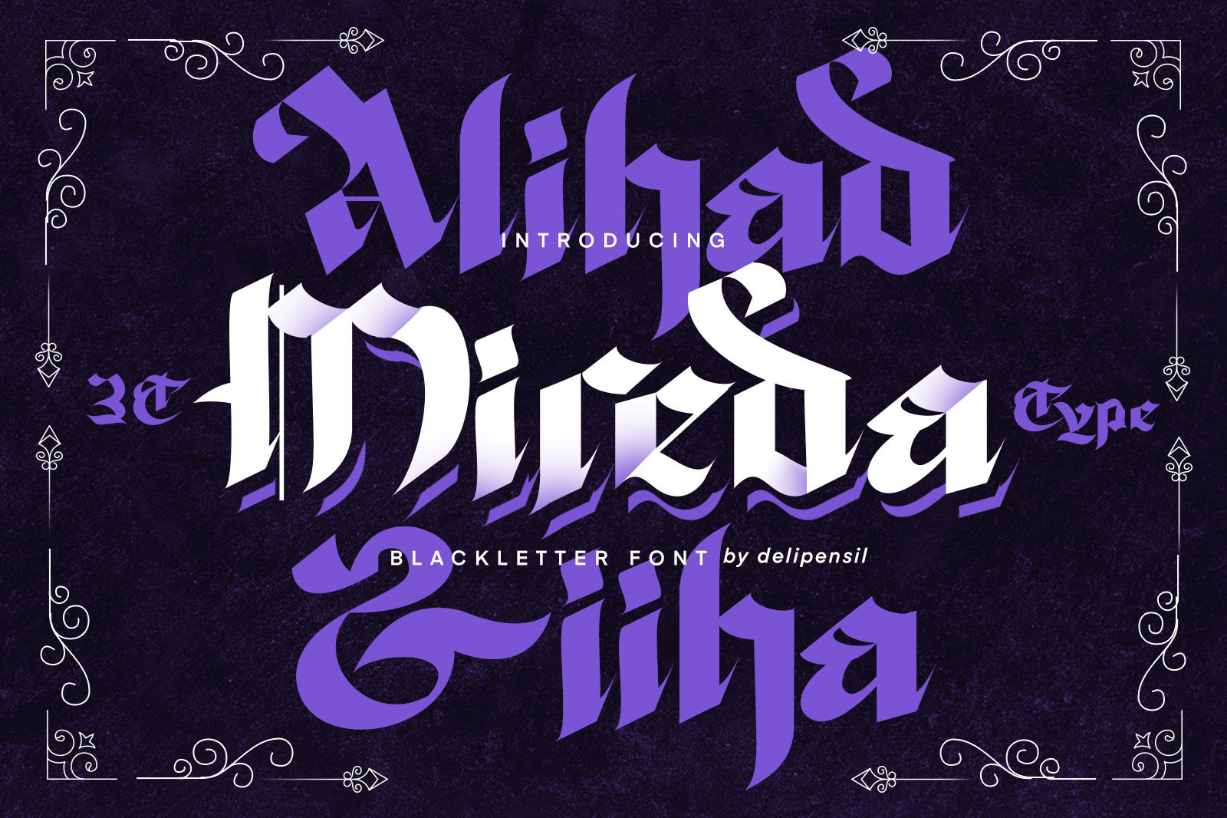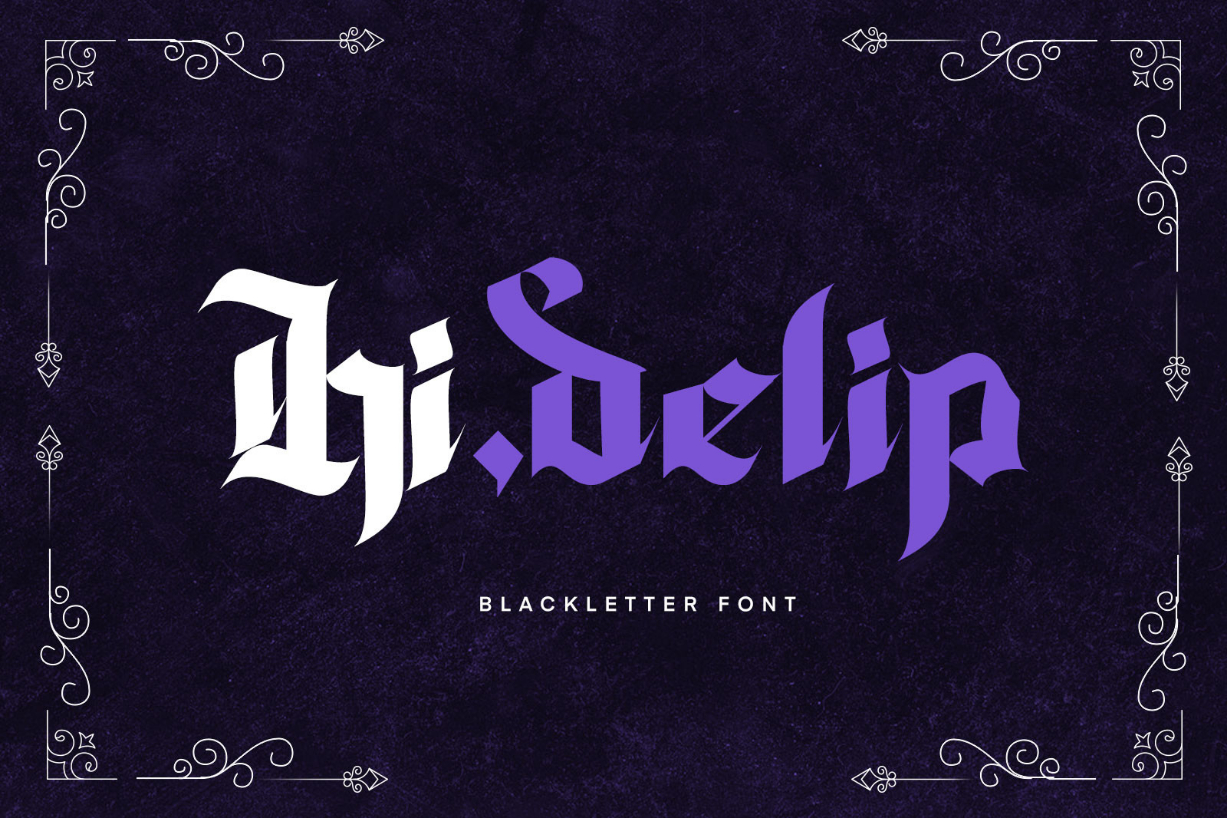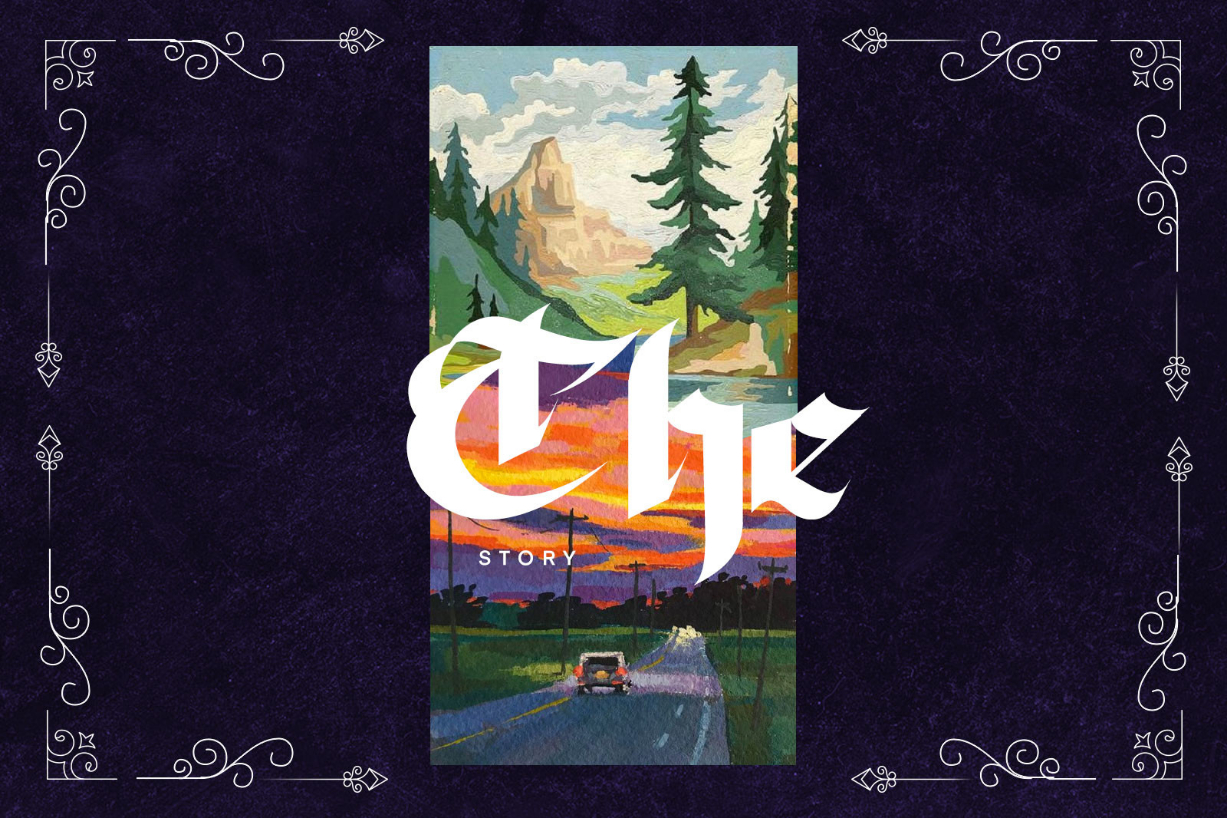
Mireda Font
About Mireda Font
Mireda is a bold and thick lettered blackletter font. Whatever the topic, this font will be a wonderful asset to your font library, as it has the potential to enhance any creation.